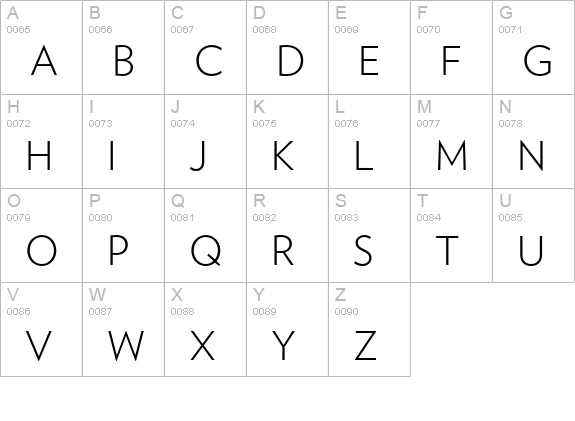
Verlag Light is a refined, elegant variant in the Verlag typeface family \xE2\x80\x94 well suited to elegant body text, refined sub-headings, and luxury branding.
Verlag Light font is a modern and elegant typeface that exudes sophistication and readability. Its sleek lines and subtle curves make it perfect for a wide range of design projects, from branding to editorial layouts. The light weight of the font adds a touch of delicacy and finesse, making it versatile for both headlines and body text. Best of all, Verlag Light font is completely free to use! You can easily download this stylish typeface at FontsMarket.com and enhance your designs with its timeless appeal. Don't miss out on this opportunity to add a touch of class to your projects with Verlag Light font.